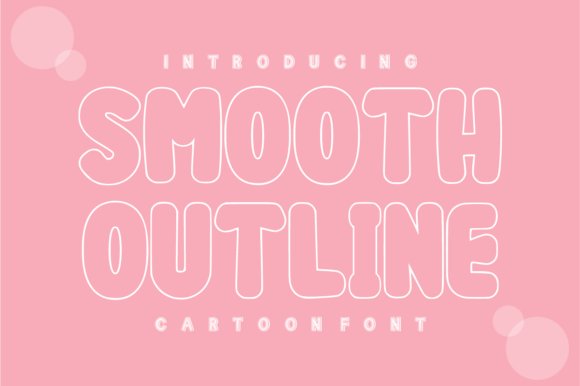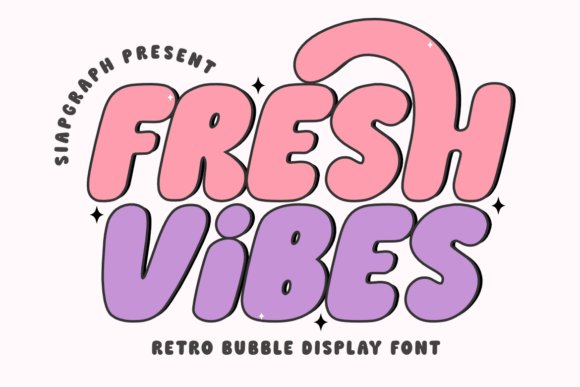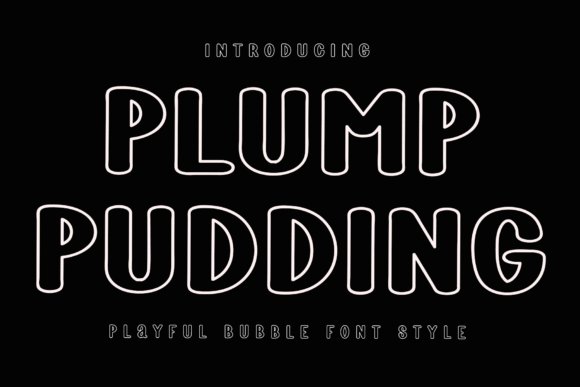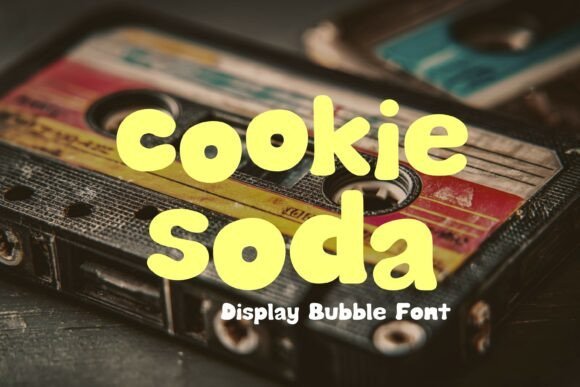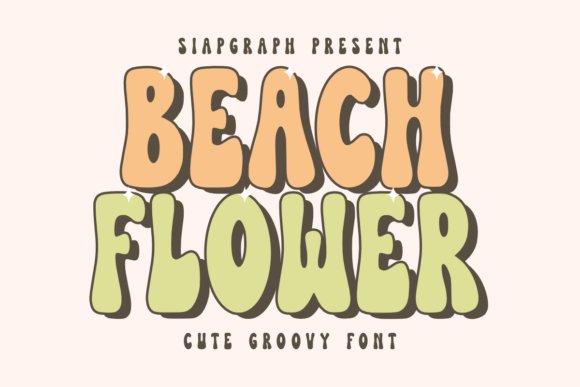
Top Display Fonts You Need to Download in 2026
Let us be honest, finding the perfect font can easily eat up hours of your workflow. When you are designing a logo, a striking poster, or a bold hero section for a website, standard sans-serifs just will not cut it. You need something with personality, weight, and serious visual impact. That is exactly why I put together this roundup of the absolute best display fonts making waves in 2026. Whether you are leaning into retro nostalgia or futuristic minimalism, these hand-picked typefaces will give your next creative project that much-needed visual punch.
1. Super Bubble Font
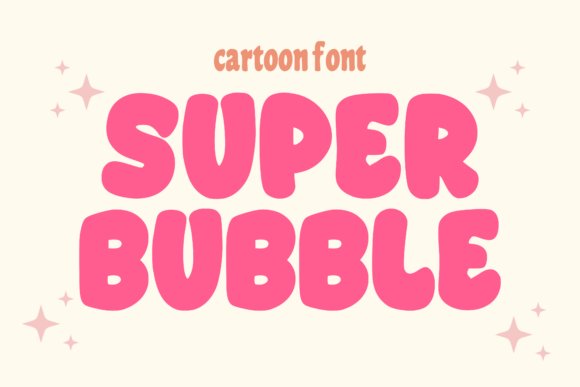
Super Bubble Font brings a strikingly modern and audaciously bold aesthetic to the world of display typography. Characterized by its substantial weight and rounded, voluminous letterforms, this typeface commands attention while maintaining an approachable, friendly demeanor. The smooth curves and inflated appearance give it a distinct personality that bridges the gap between contemporary street style and playful pop art, making it an incredibly versatile asset for modern designers.
Beyond its eye-catching visual appeal, this font shines in its broad application spectrum. It is an absolute powerhouse for crafting memorable brand identities, vibrant packaging designs, and statement apparel graphics like t-shirts and hoodies. Digital creators will find it equally impactful for YouTube thumbnails, Instagram graphics, and website headers where instant visual engagement is crucial. Whether you are cutting vinyl decals for a Cricut project or laying out a dynamic comic book cover, Super Bubble delivers a punchy, energetic flair that instantly elevates your creative work.
2. Modern Bubble Font
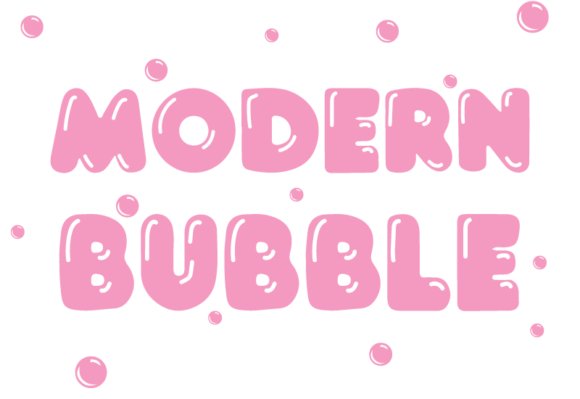
Step into a world of whimsical nostalgia with the Modern Bubble Font, an artfully designed display typeface that captures the pure, unadulterated joy of childhood. Expertly crafted to radiate charisma, this animated font features delightfully irregular characters that mimic the heartwarming spontaneity of a child’s handwriting. Every stroke and curve is infused with a bubbly aesthetic and the subtle, endearing nuances of youthful scribbles, instantly transforming any text into a familiar, happy visual experience.
This font is a brilliant choice for projects that demand a sense of innocence, playfulness, and approachability. It is particularly effective in children’s book illustrations, educational materials, and toy packaging, where capturing the imagination of young audiences is paramount. Additionally, lifestyle brands and event planners can leverage Modern Bubble to create inviting party invitations, quirky social media campaigns, and engaging apparel designs. By injecting a sense of playful wonder into your typography, this font ensures your designs resonate on a deeply emotional and joyful level.
3. Vintage Charm Font
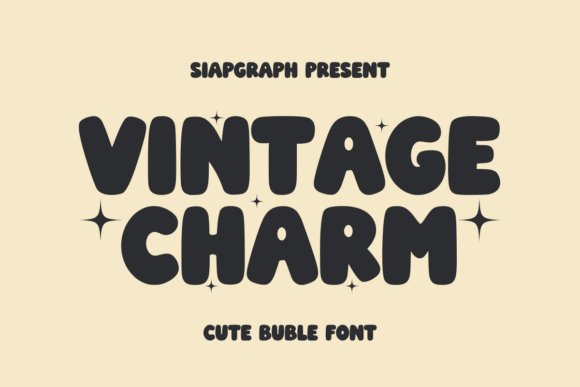
True to its name, Vintage Charm Font is a masterclass in blending retro playfulness with the clean, highly legible standards of modern typography. This delightful display typeface is defined by its luxuriously bold, rounded shapes that effortlessly evoke the groovy aesthetics of the 1970s while remaining entirely relevant for contemporary design. The generous curves and soft edges impart a deep sense of nostalgia and warmth, creating a typographic presence that feels incredibly approachable and full of vibrant personality.
Designers looking to infuse their work with a cheerful, throwback energy will find Vintage Charm to be an invaluable addition to their typographic toolkit. It performs beautifully across large formats like festival posters and event flyers, yet retains its charm in tighter spaces like artisanal product packaging and dynamic social media graphics. Whether you are building a retro-inspired brand identity or crafting a groovy merchandise line, this font ensures your messaging is not only seen but felt, turning ordinary copy into an engaging, fun-filled visual statement.
4. Smarty Bubble Font
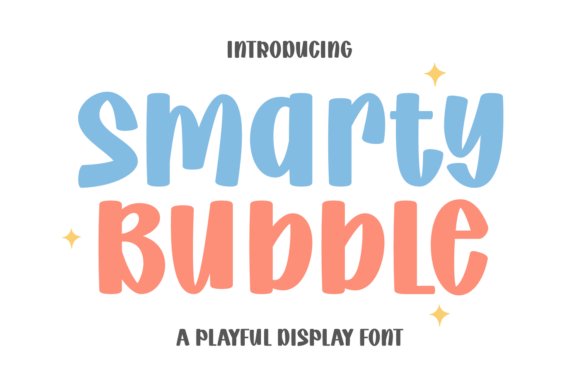
Inject an infectious sense of joy into your design projects with Smarty Bubble, a delightful display typeface defined by its soft, rounded edges and bouncy rhythmic flow. This friendly font masterfully captures a handcrafted, youthful energy that feels instantly approachable. Its organic, bubbly shapes evoke a profound sense of warmth and accessibility, drawing viewers in with its carefree and whimsical aesthetic.
Smarty Bubble truly shines when applied to projects requiring a lighthearted touch, such as children’s books, vibrant toy packaging, and engaging social media graphics. It is equally at home in casual branding, particularly for approachable food and beverage labels or fun educational applications. For a polished, professional finish, typography experts recommend pairing this exuberant bubbly font with a simple, monolinear sans-serif—this allows the decorative headlines to take center stage while maintaining overall legibility. Whether designing lively party invitations or crafting a youthful brand identity, this typeface delivers a pop of personality that remains incredibly charming.
5. Bubble Universe Font
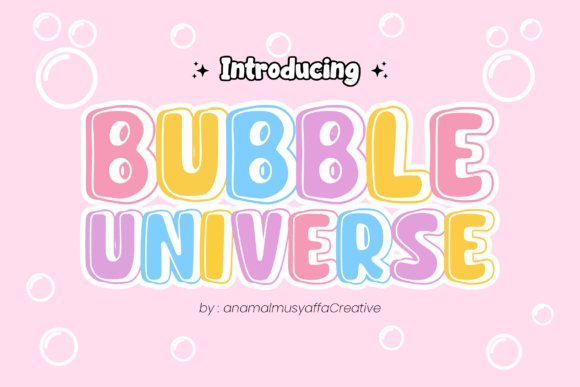
Step into a world of playful typography with Bubble Universe, a modern display font that perfectly balances contemporary design with undeniable cuteness. Each character is meticulously crafted with inflated, bulbous forms that make every word leap off the page. The rounded, friendly aesthetic ensures that your text remains highly legible while delivering a bold, energetic statement that captures the viewer’s attention immediately.